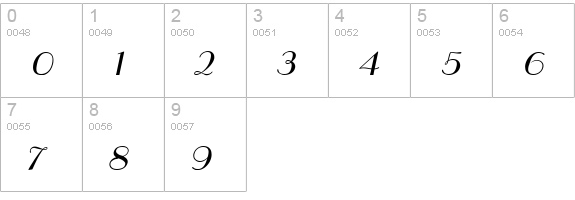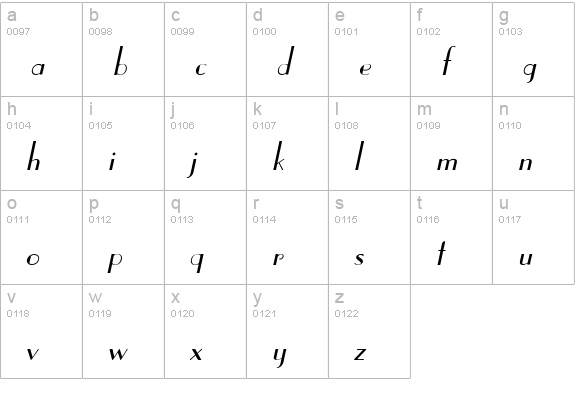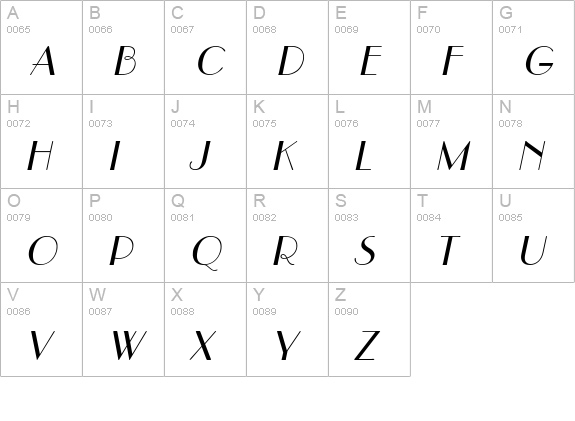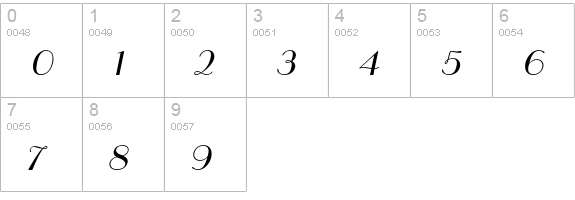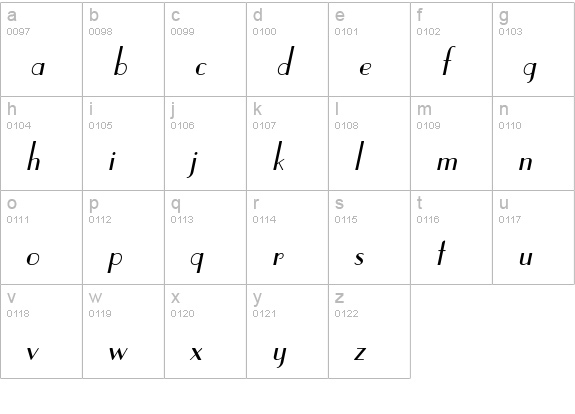
Paris Italic Font Details
Paris Italic is a distinctive, italic variant in the Paris typeface family \xE2\x80\x94 well suited to design and typography projects.
Paris Italic is a stunningly elegant font that exudes sophistication and grace. With its slender and graceful letterforms, this font captures the essence of Parisian charm and allure. Its delicate curves and stylish slant make it perfect for adding a touch of elegance to any design project. This font is not only visually appealing but also highly versatile. It can be used in a wide range of design applications, from branding and packaging to editorial design and advertising. Its timeless appeal makes it suitable for both classic and contemporary design projects. One of the best features of Paris Italic is that it is freely available to download at FontsMarket.com. This means that designers and creatives can easily access this beautiful font without any cost or hassle. Whether you are a professional designer or a hobbyist, you can enjoy the benefits of this font without breaking the bank. Paris Italic is designed with meticulous attention to detail, ensuring that every letterform is harmonious and visually pleasing. Its high legibility and elegant curves make it a joy to read, whether it is used for headlines, body text, or captions. Whether you are designing a wedding invitation, a fashion magazine spread, or a luxury brand logo, Paris Italic is the perfect choice to add a touch of class and sophistication. Its timeless beauty and effortless elegance will elevate your designs and leave a lasting impression. In conclusion, Paris Italic is a stunningly beautiful font that is freely available to download at FontsMarket.com. Its elegant letterforms, versatile design, and timeless appeal make it a must-have for any designer or creative. Download Paris Italic today and add a touch of Parisian charm to your next design project.